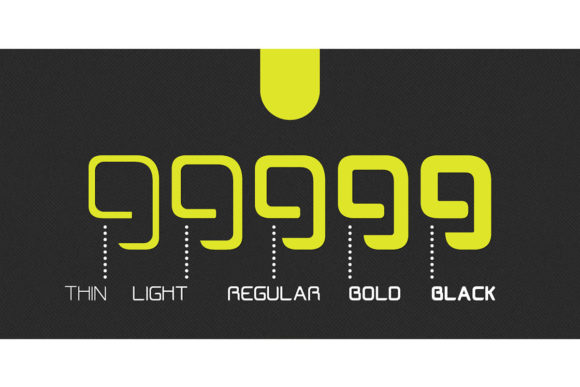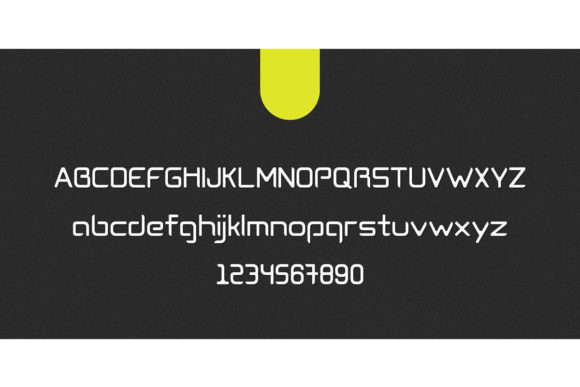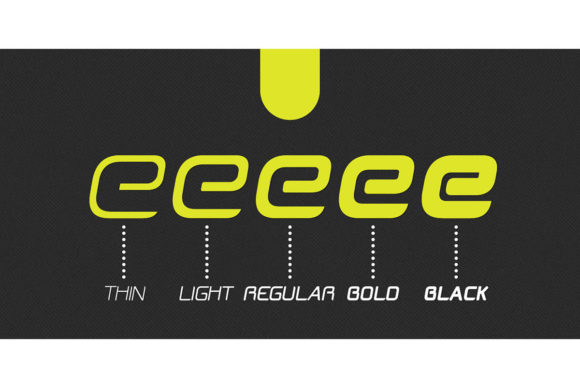
Introduction to Cogtan Font
Cogtan is a cool and geometric styled sans serif font.
It is perfect for product packaging, branding project, magazine covers, social media, wedding, or just used to express words above the background .
Key Features of Cogtan Font